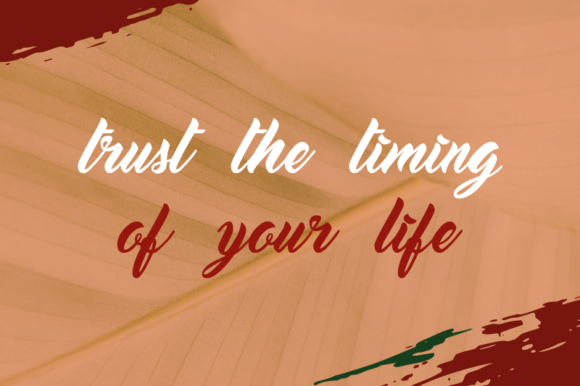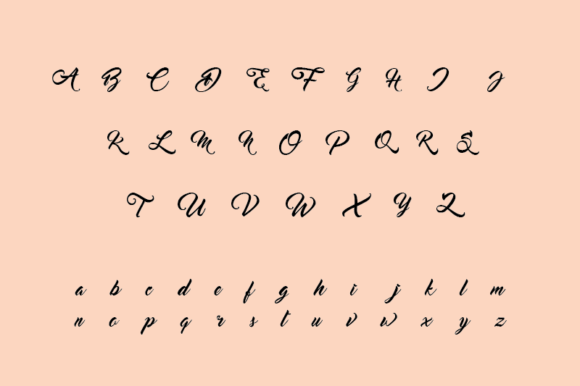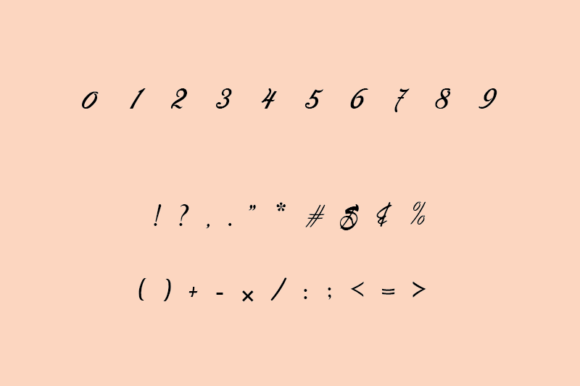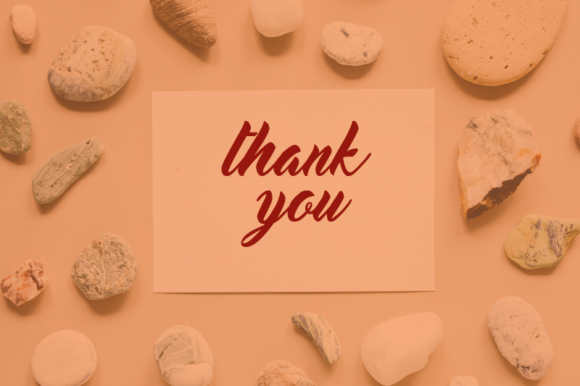
Blythe Font: Elevate Your Designs with Elegance and Sophistication
Are you looking for a font that exudes elegance, sophistication, and a touch of modernity? Look no further than the stunning Blythe Font. This beautiful, handwritten font is perfect for designers and crafters seeking to add a level of refinement and luxury to their projects. With its flowing lines, classy calligraphic influences, and contemporary feel, Blythe Font is sure to capture your heart and take your designs to new heights.
The Characteristics of Blythe Font
Blythe Font is a true masterpiece, boasting a range of characteristics that set it apart from other fonts. Here are just a few of the features that make this font so special:
- Flowing and Elegant: Blythe Font features smooth, flowing lines that give it a sense of movement and fluidity. This makes it perfect for creating beautiful, eye-catching headlines, titles, and text.
- Classy Calligraphic Influences: The font’s calligraphic roots are evident in its elegant strokes, refined lettering, and classic feel. This adds a level of sophistication and luxury to any design.
- Contemporary and Fresh: Despite its classic influences, Blythe Font feels modern and fresh, making it perfect for designers seeking to create contemporary, stylish designs.
Why Choose Blythe Font?
So why should you choose Blythe Font for your next project? Here are just a few compelling reasons:
- Versatility: Blythe Font is incredibly versatile, making it suitable for a wide range of design applications, from wedding invitations and stationery to branding, packaging, and digital design.
- Emotional Connection: The font’s elegant, flowing lines have the power to evoke emotions and create a lasting impression on your audience. This makes it perfect for designers seeking to create a strong emotional connection with their clients or customers.
- Easy to Read: Despite its elegant, cursive feel, Blythe Font is surprisingly easy to read, making it perfect for body text, headlines, and titles.
Using Blythe Font in Your Designs
So how can you use Blythe Font in your designs? Here are a few ideas to get you started:
- Wedding Invitations: Blythe Font is perfect for creating beautiful, elegant wedding invitations that set the tone for a sophisticated, luxurious wedding.
- Branding and Packaging: The font’s modern, fresh feel makes it perfect for branding and packaging design, particularly for luxury brands seeking to create a high-end image.
- Digital Design: Blythe Font is also perfect for digital design, including website headers, social media graphics, and email marketing campaigns.
Tips for Getting the Most from Blythe Font
To get the most from Blythe Font, here are a few tips to keep in mind:
- Experiment with Colors: The font’s elegant lines look stunning in a range of colors, from classic black and white to bold, bright hues.
- Play with Ligatures: Blythe Font features beautiful ligatures that can add an extra level of elegance and sophistication to your designs.
- Mix and Match: Don’t be afraid to mix and match Blythe Font with other fonts to create a unique, eye-catching look.
In conclusion, Blythe Font is a truly exceptional font that offers a unique combination of elegance, sophistication, and modernity. With its flowing lines, classy calligraphic influences, and contemporary feel, this font is perfect for designers and crafters seeking to create beautiful, high-end designs. Whether you’re working on a wedding invitation, branding project, or digital design, Blythe Font is sure to elevate your designs to new heights. So why wait? Fall in love with Blythe Font and bring your projects to life with elegance, sophistication, and style!